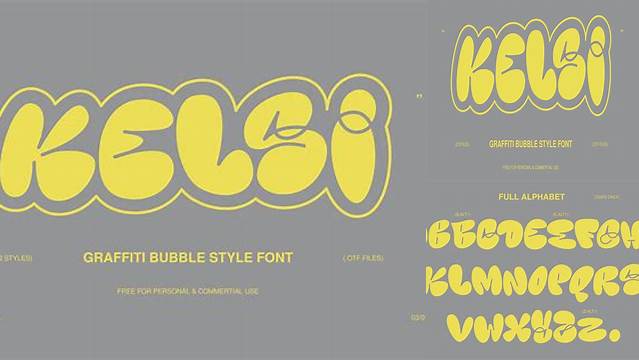
Kelsi Graffiti Font: Free Bubble Style Download
Hey guys! Are you looking to spice up your designs with a cool, urban vibe? Then you've come to the right place! We're diving deep into the world of the Kelsi free graffiti style bubble font, and we're going to show you where to find it and how to use it. Get ready to add some serious street cred to your projects!
1. Understanding the Appeal of Bubble Fonts
So, what’s the big deal with bubble fonts anyway? Well, they're playful, they're fun, and they instantly give off a retro, graffiti-inspired feel. Bubble fonts are characterized by their rounded, inflated letterforms, making them super eye-catching and perfect for headlines, posters, and anything that needs a bit of pop. When you combine this bubbly aesthetic with the raw energy of graffiti, you get a font that's both approachable and edgy. This unique combination makes the Kelsi free graffiti style bubble font a fantastic choice for various design projects, from kids' birthday invites to urban-themed marketing materials. Plus, who doesn't love a font that looks like it's straight out of a cartoon?
2. Key Features of Kelsi Graffiti Font
The Kelsi free graffiti style bubble font stands out because of its distinct, hand-drawn appearance that mimics the look of actual graffiti art. The letters have a playful bounce, as if they're floating or bubbling, which adds to their whimsical charm. The font often includes variations in thickness and texture, giving each character a unique personality. This makes it feel less like a standard typeface and more like a piece of art. Another key feature is its versatility. While it's perfect for bold, attention-grabbing headlines, it can also be used in smaller sizes for a more subtle, playful effect. Many versions of the Kelsi font come with additional stylistic alternates and ligatures, allowing designers to create even more unique and expressive typography. So, whether you're working on a poster, a logo, or a social media graphic, the Kelsi font can bring a fresh, creative edge to your work.
8. Pairing Kelsi Font with Other Typefaces
One of the keys to great typography is knowing how to pair fonts effectively. The Kelsi free graffiti style bubble font is a bold and expressive typeface, so it's best to pair it with simpler, more neutral fonts that won't compete for attention. A classic sans-serif like Helvetica or Arial can provide a clean and legible contrast to the Kelsi font's playful curves. Alternatively, a simple serif font like Times New Roman or Georgia can add a touch of sophistication. When pairing fonts, consider the overall tone and message you're trying to convey. If you want a more modern and edgy look, go with a sans-serif. If you want a more classic and refined look, go with a serif. Experiment with different combinations until you find something that works well together. Remember, the goal is to create a harmonious balance between the fonts, so that they complement each other and enhance the overall design.
9. Designing Logos with Kelsi Font
If you're looking to create a logo that stands out from the crowd, the Kelsi free graffiti style bubble font can be a fantastic choice. Its unique and playful appearance can add a lot of personality to your brand identity. When designing a logo with the Kelsi font, keep it simple and memorable. Use a minimal number of words and focus on creating a strong visual impact. Experiment with different color combinations and graphic elements to enhance the logo's appeal. Consider using the Kelsi font for the main wordmark and pairing it with a simpler font for the tagline or other supporting text. Make sure the logo is legible and scalable, so it looks good in both small and large sizes. And most importantly, make sure the logo accurately reflects your brand's values and personality. With the right design, the Kelsi font can help you create a logo that's both eye-catching and effective.
10. Creating Eye-Catching Posters with Kelsi Font
Posters are all about grabbing attention, and the Kelsi free graffiti style bubble font is perfect for that! Its bold, playful, and graffiti-inspired look can instantly make your posters stand out. When designing posters with the Kelsi font, use it for the main headline or title to draw the viewer's eye. Pair it with vibrant colors, dynamic graphics, and a clear message. Consider using the Kelsi font in different sizes and weights to create visual hierarchy and emphasis. Don't be afraid to experiment with different layouts and compositions to find something that's both visually appealing and informative. Remember, the goal of a poster is to communicate a message quickly and effectively, so make sure your design is clear, concise, and engaging. With the Kelsi font, you can create posters that are both stylish and impactful.
11. Designing Social Media Graphics with Kelsi Font
In the fast-paced world of social media, it's essential to create graphics that grab attention instantly. The Kelsi free graffiti style bubble font is a great way to make your social media posts stand out from the crowd. Use the Kelsi font for headlines, captions, and other text elements that you want to emphasize. Pair it with eye-catching images or videos to create a visually appealing post. Keep your designs clean and simple, and make sure your message is clear and concise. Use different sizes and weights of the Kelsi font to create visual hierarchy and guide the viewer's eye. And don't forget to optimize your graphics for different social media platforms, such as Facebook, Instagram, and Twitter. With the Kelsi font, you can create social media graphics that are both stylish and effective.
12. Using Kelsi Font for T-Shirt Designs
Want to create a t-shirt that's both cool and unique? The Kelsi free graffiti style bubble font is a fantastic choice for t-shirt designs! Its bold, graffiti-inspired look can add a lot of personality to your apparel. Use the Kelsi font for slogans, quotes, or graphic elements that you want to feature on your t-shirt. Consider using different colors and textures to enhance the design. Make sure the design is legible and comfortable to wear. Test the design on different t-shirt colors and sizes to ensure it looks good on all variations. And most importantly, make sure the design reflects your personal style and message. With the Kelsi font, you can create t-shirts that are both stylish and expressive.
13. Creating Stickers and Decals with Kelsi Font
Stickers and decals are a fun and creative way to express yourself, and the Kelsi free graffiti style bubble font can help you create designs that really pop! Use the Kelsi font for words, phrases, or graphic elements that you want to feature on your stickers. Consider using bright colors and bold outlines to make the stickers stand out. Make sure the design is legible and easy to apply. Experiment with different shapes and sizes to create a variety of stickers. And most importantly, have fun and let your creativity shine! With the Kelsi font, you can create stickers and decals that are both stylish and expressive.
14. Designing Invitations with Kelsi Font
Making invitations can be so much fun if you know what fonts to use. The Kelsi free graffiti style bubble font can add a playful and unique touch to your invitations, making them stand out from the standard designs. Whether it's a birthday party, a casual get-together, or a themed event, Kelsi font can bring that special flair. Use it for the main heading, the event title, or even to highlight important details like the date, time, and location. Remember to pair it with a cleaner, simpler font for the body text to ensure readability. Add some themed graphics or illustrations to complement the font and tie everything together. With Kelsi font, your invitations are sure to make a memorable impression!
15. Creating Comic Books with Kelsi Font
For all you comic book creators out there, the Kelsi free graffiti style bubble font can be an excellent choice for adding some visual punch to your panels. Comic books thrive on expressive typography, and Kelsi's bubbly, graffiti-inspired style fits right in. Use it for speech bubbles, sound effects, and titles to convey energy and emotion. Experiment with different sizes and weights to emphasize certain words or phrases. You can also add outlines or shadows to make the text stand out against busy backgrounds. Just remember to keep the text legible and easy to read, so your audience can follow the story without any strain. With Kelsi font, you can elevate your comic book's visual appeal and create a more immersive reading experience!
16. Designing Album Covers with Kelsi Font
If you're working on an album cover and want to give it an edgy, urban feel, the Kelsi free graffiti style bubble font is a fantastic option. Album covers need to capture the essence of the music within, and Kelsi font can help convey a sense of rebellion, creativity, and individuality. Use it for the artist's name, the album title, or any other key information you want to highlight. Consider incorporating graffiti-style elements or street art-inspired graphics to complement the font. Experiment with different color schemes and textures to create a visually striking design that represents the music's mood and style. With Kelsi font, your album cover will definitely grab attention and stand out on the shelves!
17. Using Kelsi Font in Video Editing Projects
For video editors looking to add some flair to their projects, the Kelsi free graffiti style bubble font can be a game-changer. Whether you're working on a music video, a promotional clip, or a social media ad, Kelsi font can help you create eye-catching titles, lower thirds, and text overlays. Use it to emphasize key messages, highlight important information, or simply add some visual interest to your footage. Experiment with different animation styles and effects to make the text come alive. Just be mindful of readability and make sure the text is visible against the background. With Kelsi font, you can take your video editing projects to the next level!
18. Creating Website Headers with Kelsi Font
A website header is often the first thing visitors see, so it's crucial to make a strong impression. The Kelsi free graffiti style bubble font can be an excellent choice for creating headers that are both visually appealing and attention-grabbing. Use it for your website's logo, tagline, or main navigation menu. Make sure the font is legible and easy to read, even at smaller sizes. Consider using a contrasting color scheme to make the header stand out from the rest of the page. Experiment with different layouts and graphic elements to create a header that reflects your brand's identity and style. With Kelsi font, your website header will definitely make a lasting impression!
19. Using Kelsi Font for School Projects
Students looking to add some creativity to their school projects can definitely benefit from using the Kelsi free graffiti style bubble font. Whether it's a presentation, a poster, or a report, Kelsi font can help make your work more engaging and visually appealing. Use it for titles, headings, and key points to grab your audience's attention. Just be sure to use it sparingly and balance it with a more readable font for the body text. Remember to follow your teacher's guidelines and make sure the font is appropriate for the project. With Kelsi font, you can make your school projects stand out and showcase your unique style!
20. Creating Party Decorations with Kelsi Font
Hosting a party and want to add a personal touch to the decorations? The Kelsi free graffiti style bubble font can be your go-to option for creating banners, signs, and other party decorations that are both fun and festive. Use it to spell out the birthday person's name, welcome guests, or display the party theme. You can print the letters on cardstock, cut them out, and hang them up with string or tape. Get creative with colors, glitter, and other embellishments to make the decorations even more eye-catching. With Kelsi font, your party decorations will definitely set the mood and create a memorable atmosphere!
21. Designing Business Cards with Kelsi Font
Looking to create a business card that stands out from the pile? The Kelsi free graffiti style bubble font can be a bold and creative choice for making a memorable first impression. Use it for your name, job title, or company logo to add a unique touch to your card. Pair it with a clean and simple font for your contact information to ensure readability. Consider using a high-quality paper stock and a professional printing service to elevate the overall look of your card. With Kelsi font, your business card will definitely grab attention and make you stand out from the competition!
22. Creating Book Covers with Kelsi Font
Book covers need to be visually compelling to attract readers, and the Kelsi free graffiti style bubble font can be an excellent choice for genres that call for a bold and edgy look. Use it for the title, author's name, or any other key information you want to highlight. Consider incorporating relevant imagery or illustrations to complement the font and convey the book's theme. Make sure the font is legible and easy to read, even at a distance. Experiment with different color schemes and textures to create a cover that stands out on the shelves. With Kelsi font, your book cover will definitely capture attention and entice readers to pick it up!
23. Using Kelsi Font for Personal Branding
For individuals looking to create a unique and memorable personal brand, the Kelsi free graffiti style bubble font can be a great asset. Use it in your logo, website, social media profiles, and other marketing materials to create a consistent and recognizable brand identity. Make sure the font aligns with your personal style and values. Consider using a complementary color palette and graphic elements to enhance your brand's visual appeal. With Kelsi font, you can create a personal brand that is both authentic and impactful!
24. Creating Greeting Cards with Kelsi Font
Want to add a personal and creative touch to your greeting cards? The Kelsi free graffiti style bubble font can be an excellent choice for expressing your sentiments in a unique way. Use it for the main message, a heartfelt quote, or the recipient's name. Consider incorporating hand-drawn illustrations or other embellishments to make the card even more special. You can print the design on cardstock or create a digital version to send via email. With Kelsi font, your greeting cards will definitely stand out and bring a smile to the recipient's face!
25. Designing Newsletters with Kelsi Font
Newsletters are a great way to stay in touch with your audience, and the Kelsi free graffiti style bubble font can help you create visually appealing and engaging designs. Use it for headlines, subheadings, and call-to-actions to grab your readers' attention. Pair it with a clean and readable font for the body text to ensure clarity. Consider using a consistent color scheme and layout to maintain a professional look. With Kelsi font, your newsletters will definitely stand out in the inbox and keep your audience coming back for more!
26. Using Kelsi Font for Event Signage
When organizing an event, clear and eye-catching signage is essential for guiding attendees and creating a welcoming atmosphere. The Kelsi free graffiti style bubble font can be a great choice for designing signs that are both visually appealing and easy to read. Use it for directional signs, welcome banners, or information displays. Make sure the font size is large enough to be seen from a distance. Consider using contrasting colors to make the text stand out against the background. With Kelsi font, your event signage will definitely make a positive impression!
27. Creating Digital Ads with Kelsi Font
In the competitive world of digital advertising, it's crucial to create ads that grab attention and convey your message effectively. The Kelsi free graffiti style bubble font can be a valuable asset for designing ads that stand out from the crowd. Use it for headlines, call-to-actions, or any other text elements that you want to emphasize. Pair it with compelling visuals and a clear offer to entice potential customers. Make sure the ad is optimized for different devices and platforms. With Kelsi font, your digital ads will definitely generate clicks and drive conversions!
28. Designing Educational Materials with Kelsi Font
For educators looking to create engaging and visually appealing learning materials, the Kelsi free graffiti style bubble font can be a fun and creative choice. Use it for titles, headings, or key concepts in worksheets, presentations, or posters. Pair it with clear and concise explanations to ensure that the material is easy to understand. Consider using colorful illustrations and interactive elements to enhance the learning experience. With Kelsi font, your educational materials will definitely capture students' attention and make learning more enjoyable!
29. Using Kelsi Font for Street Art Projects
If you're involved in street art or graffiti projects, the Kelsi free graffiti style bubble font can be a natural fit for adding a touch of urban flair to your creations. Use it for tagging walls, creating murals, or designing stencils. Experiment with different colors, textures, and techniques to achieve the desired effect. Make sure your work is respectful of the environment and complies with local regulations. With Kelsi font, you can express your creativity and make a statement through street art!
30. Combining Kelsi Font with Hand-Lettering
For a truly unique and personalized design, consider combining the Kelsi free graffiti style bubble font with hand-lettering techniques. Use hand-lettering to create custom words, phrases, or illustrations that complement the font. Experiment with different styles, colors, and materials to achieve the desired effect. This combination can add a personal touch to your projects and make them stand out from the crowd. With Kelsi font and hand-lettering, the possibilities are endless!